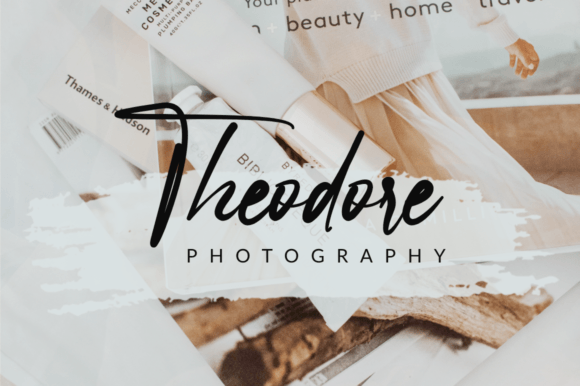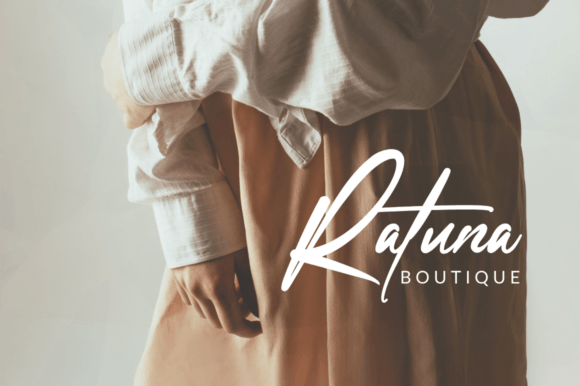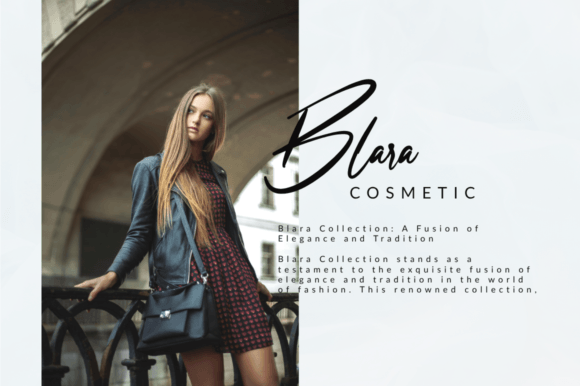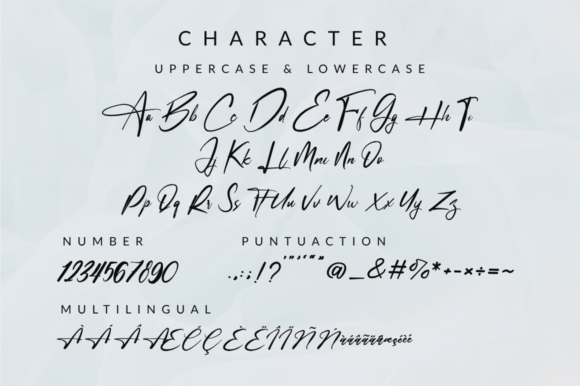
Bellagia Font: Elevate Your Designs with Refined Elegance
In the rapidly evolving digital sphere, typography plays a crucial role in capturing the essence of a brand, product, or service. For designers and crafters seeking to create stunning visual content, the right font can make all the difference. Introducing Bellagia, a font that embodies refined elegance through its delicate curves and flowing strokes. This exquisite font seamlessly blends timeless poise with modern dynamics, making it the perfect choice for creating stylish social media posts, elaborate event invitations, and iconic brand logos.
The Essence of Bellagia
Bellagia is more than just a font – it’s an experience. Its dainty curves and flowing strokes evoke a sense of luxury and sophistication, adding an extra layer of depth to every design project. Whether you’re a seasoned designer or a crafty enthusiast, Bellagia provides the perfect tools to bring your creative vision to life. With its unique blend of classic and modern elements, this font is sure to captivate your audience and leave a lasting impression.
Timeless Poise Meets Modern Dynamics
Bellagia’s design is rooted in traditional typography, with a focus on clean lines, elegant curves, and precise letter spacing. However, its modern twist sets it apart from more traditional fonts. The flowing strokes and subtle nuances in each letterform create a sense of movement and fluidity, making Bellagia perfect for designs that require a touch of sophistication and glamour.
Bellagia’s versatility knows no bounds. This font can be used for a wide range of design projects, from:
- Social Media Posts: Create eye-catching social media posts that stand out from the crowd. Bellagia’s elegant curves and flowing strokes make it perfect for crafting stylish captions, quotes, and promotions.
- Event Invitations: Design elaborate event invitations that exude luxury and sophistication. Bellagia’s refined elegance makes it ideal for weddings, galas, and other high-end events.
- Brand Logos: Create iconic brand logos that capture the essence of your brand. Bellagia’s unique blend of classic and modern elements makes it perfect for businesses seeking to establish a strong visual identity.
Why Choose Bellagia?
With so many fonts available, why choose Bellagia? Here are just a few reasons why this font stands out:
- Unique Design: Bellagia’s distinctive curves and flowing strokes set it apart from more traditional fonts.
- Versatility: This font can be used for a wide range of design projects, from social media posts to brand logos.
- Elegance: Bellagia’s refined elegance adds a touch of luxury and sophistication to every design project.
Tips for Using Bellagia
To get the most out of Bellagia, here are a few tips to keep in mind:
- Experiment with Font Sizes: Bellagia looks stunning in a variety of font sizes. Experiment with different sizes to find the perfect fit for your design.
- Pair with Other Fonts: Bellagia pairs beautifully with other fonts. Try pairing it with a bold sans-serif font for a striking contrast.
- Use in Combination with Images: Bellagia looks stunning when used in combination with high-quality images. Try using it as a overlay font to add an extra layer of depth to your design.
In conclusion, Bellagia is a font that embodies refined elegance and sophistication. Its unique blend of classic and modern elements makes it perfect for designers and crafters seeking to create stunning visual content. Whether you’re crafting stylish social media posts, designing elaborate event invitations, or creating iconic brand logos, Bellagia is the perfect choice. So why wait? Discover the power of Bellagia and elevate your designs to new heights.